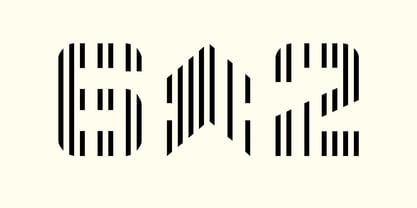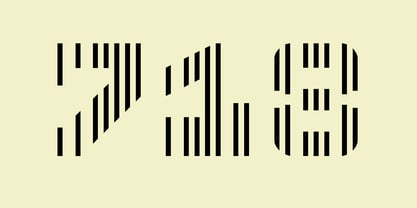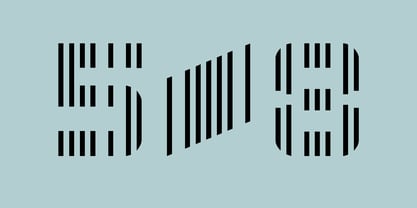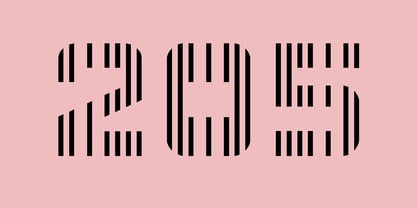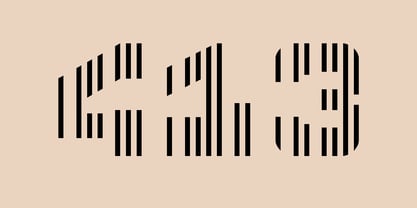
Slika MF
by Masterfont
The Slika MF Font Family was designed by Zvika Rosenberg and published by Masterfont. Slika MF contains 1 styles. More about this family
CMC7 (Coded Magnetic Character 7) is a magnetic ink character recognition (MICR) font used primarily on bank checks. This font has strokes only, no letters and it consists of 7-stroke characters and is standardized for automated banking systems. In Israel, its use is regulated by local banking authorities to ensure consistency and compatibility with check-processing machines.